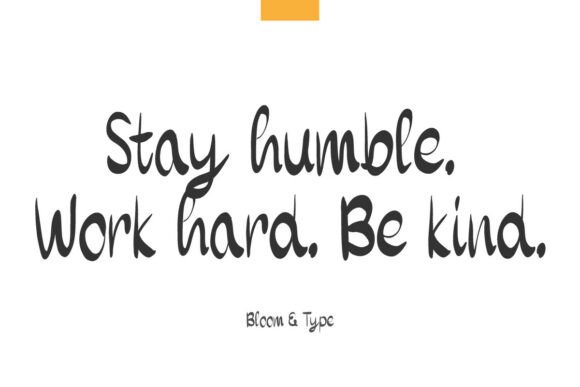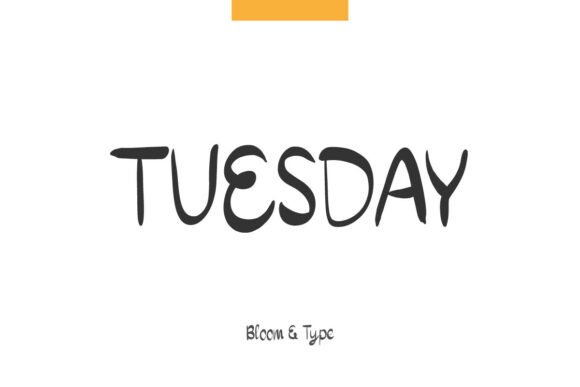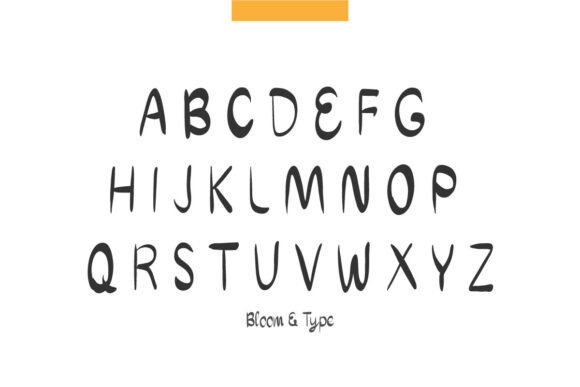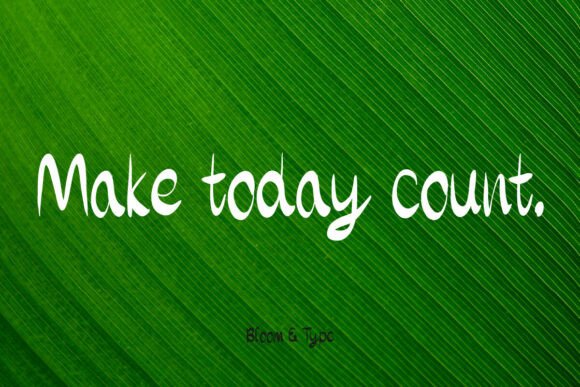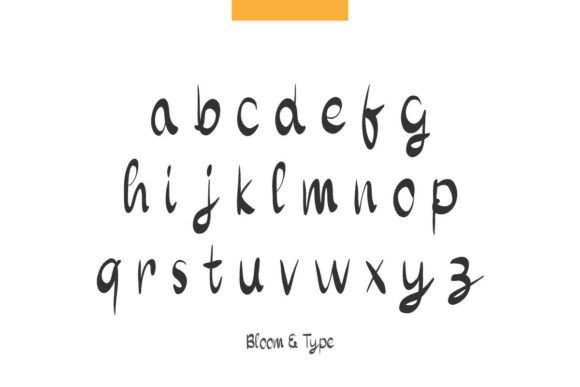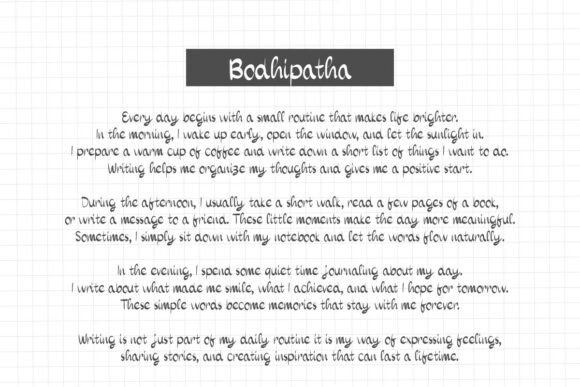
Introducing Bodhipatha Font: A Bold and Expressive Handwritten Typeface
Are you looking for a font that can add a touch of personality and elegance to your design projects? Look no further than Bodhipatha, a bold and expressive handwritten font that blends natural flow with artistic character. In this article, we’ll explore the unique features of Bodhipatha and how it can elevate your branding, motivational quotes, packaging, and social media content.
A Font Crafted with Smooth Brush-Like Strokes
Bodhipatha is a masterfully crafted font that boasts smooth brush-like strokes, creating a sense of energy, mindfulness, and creativity. Each letterform is carefully designed to convey a sense of human touch, making it perfect for projects that aim to inspire, motivate, or tell a personal story. The unique balance between thick and thin curves gives the font a friendly yet confident style, adding warmth and originality to any design.
Perfect for Modern and Organic Design Themes
Whether you’re working on a modern or organic design theme, Bodhipatha is an excellent choice. Its expressive elegance and versatility make it suitable for a wide range of design applications, from branding and packaging to social media content and motivational quotes. The font’s confident style and smooth strokes ensure that your message is conveyed with intention and clarity.
Multilingual Support for Global Creatives
In today’s global design landscape, it’s essential to have a font that can communicate with diverse audiences. Bodhipatha includes full multilingual support for Spanish, French, German, Portuguese, and Italian, making it a versatile choice for global creatives and designers seeking expressive elegance. With Bodhipatha, you can create designs that resonate with people from different cultures and languages.
Use Cases for Bodhipatha Font
So, how can you use Bodhipatha to elevate your design projects? Here are some inspiring use cases:
- Branding: Use Bodhipatha to create a unique and memorable brand identity that reflects your values and personality.
- Motivational Quotes: Add a touch of inspiration to your motivational quotes with Bodhipatha’s bold and expressive style.
- Packaging: Make your product packaging stand out with Bodhipatha’s elegant and sophisticated design.
- Social Media Content: Use Bodhipatha to create engaging social media content that resonates with your audience.
Why Choose Bodhipatha Font?
With so many fonts available, why choose Bodhipatha? Here are some compelling reasons:
- Unique and Expressive: Bodhipatha’s bold and expressive style sets it apart from other fonts.
- Multilingual Support: Communicate with diverse audiences using Bodhipatha’s multilingual support.
- Versatile: Use Bodhipatha for a wide range of design applications, from branding to social media content.
- Elegant and Sophisticated: Add a touch of elegance and sophistication to your designs with Bodhipatha.
| Font Name | Bodhipatha Font |
| Author | Bloom & Type |
In conclusion, Bodhipatha is a bold and expressive handwritten font that can elevate your design projects with its unique blend of natural flow and artistic character. With its smooth brush-like strokes, multilingual support, and versatility, Bodhipatha is an excellent choice for designers and crafters seeking a font that can add warmth and originality to their designs. Whether you’re working on branding, motivational quotes, packaging, or social media content, Bodhipatha is a font that speaks with intention and clarity.